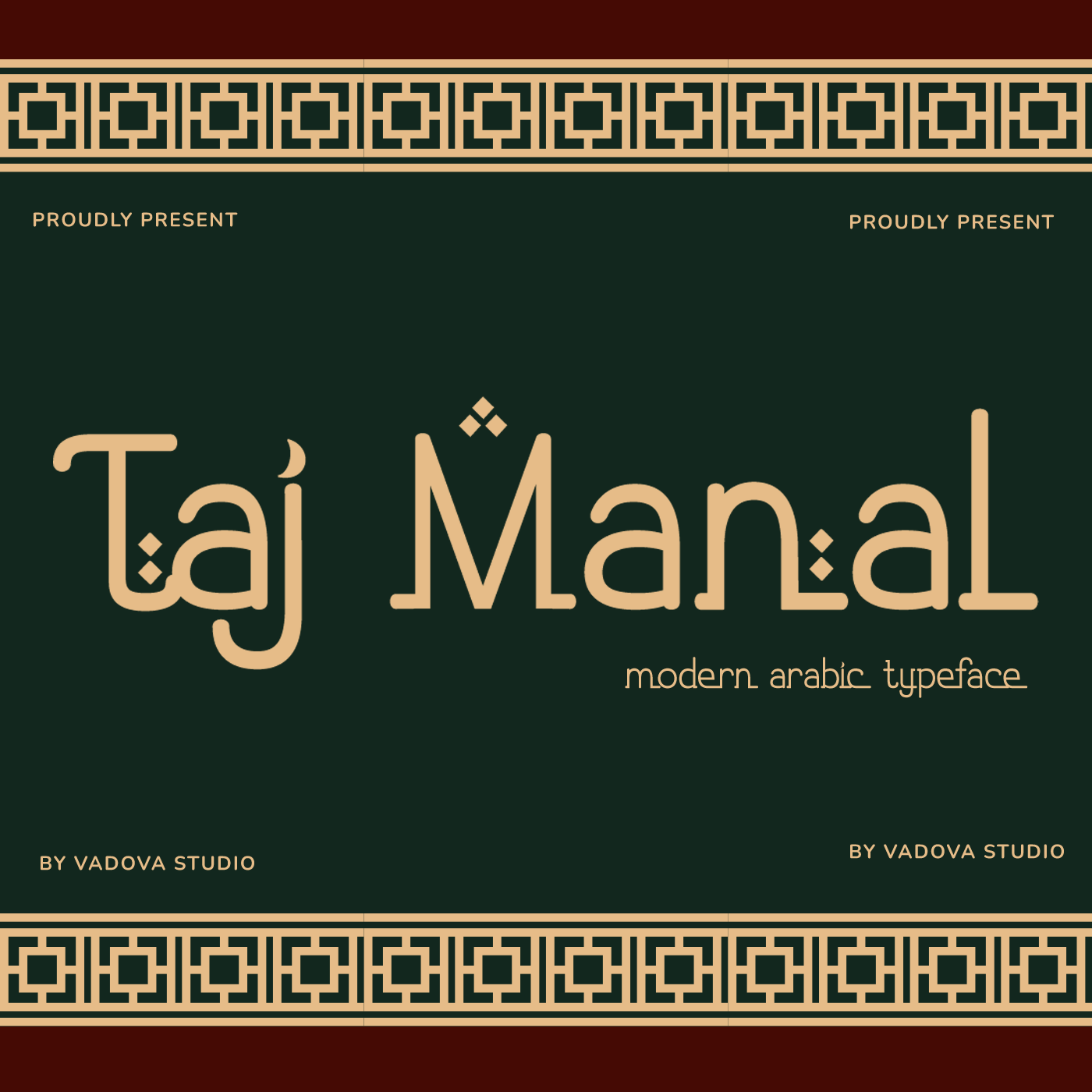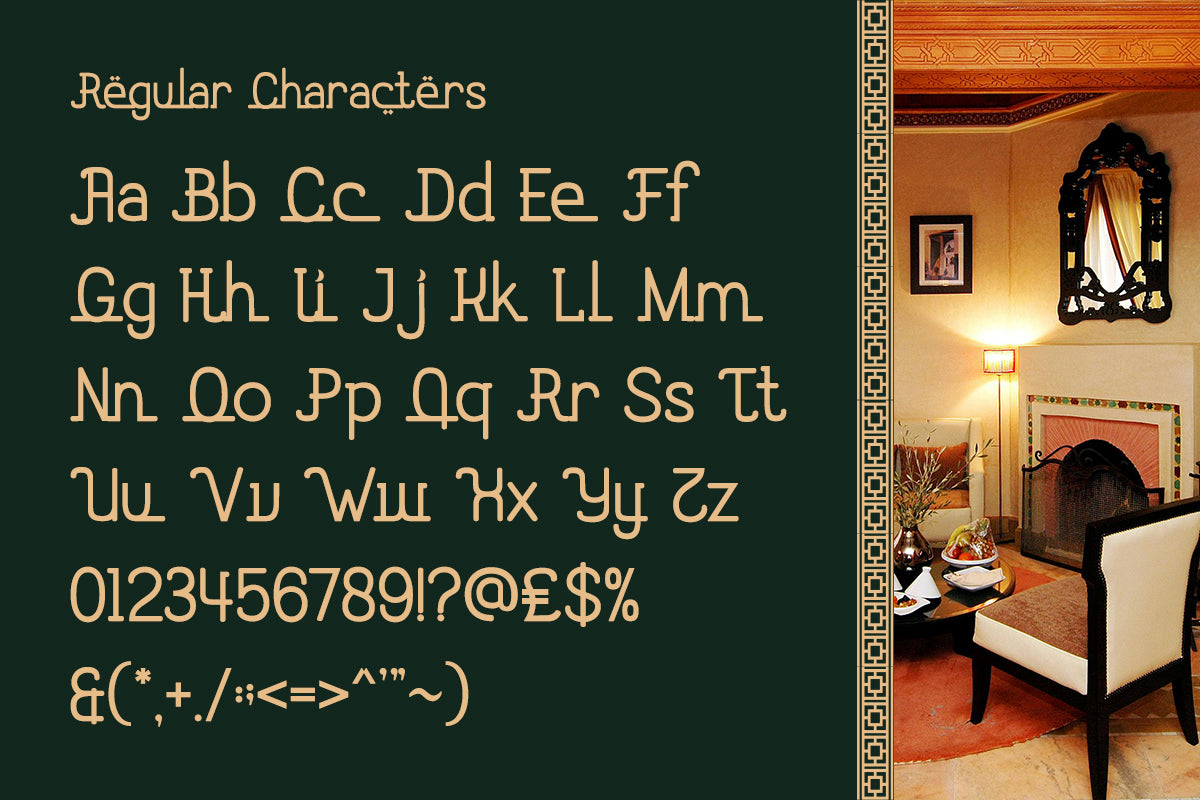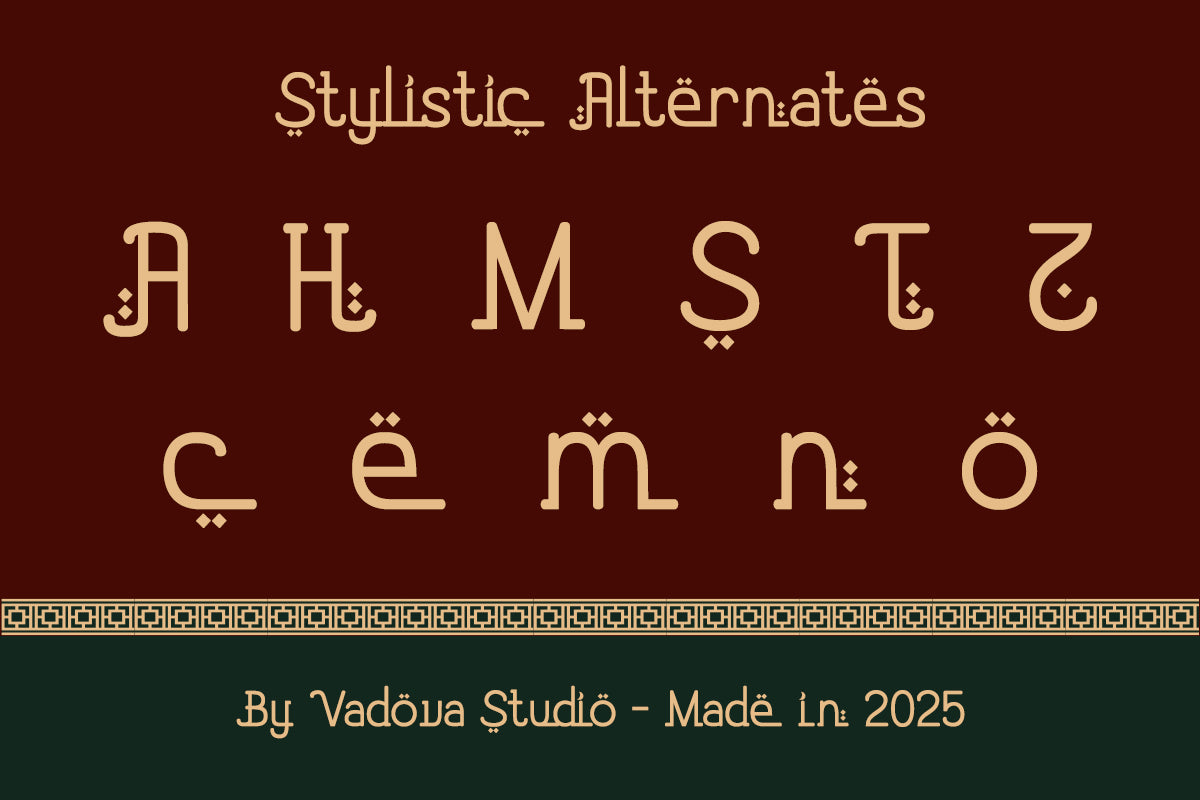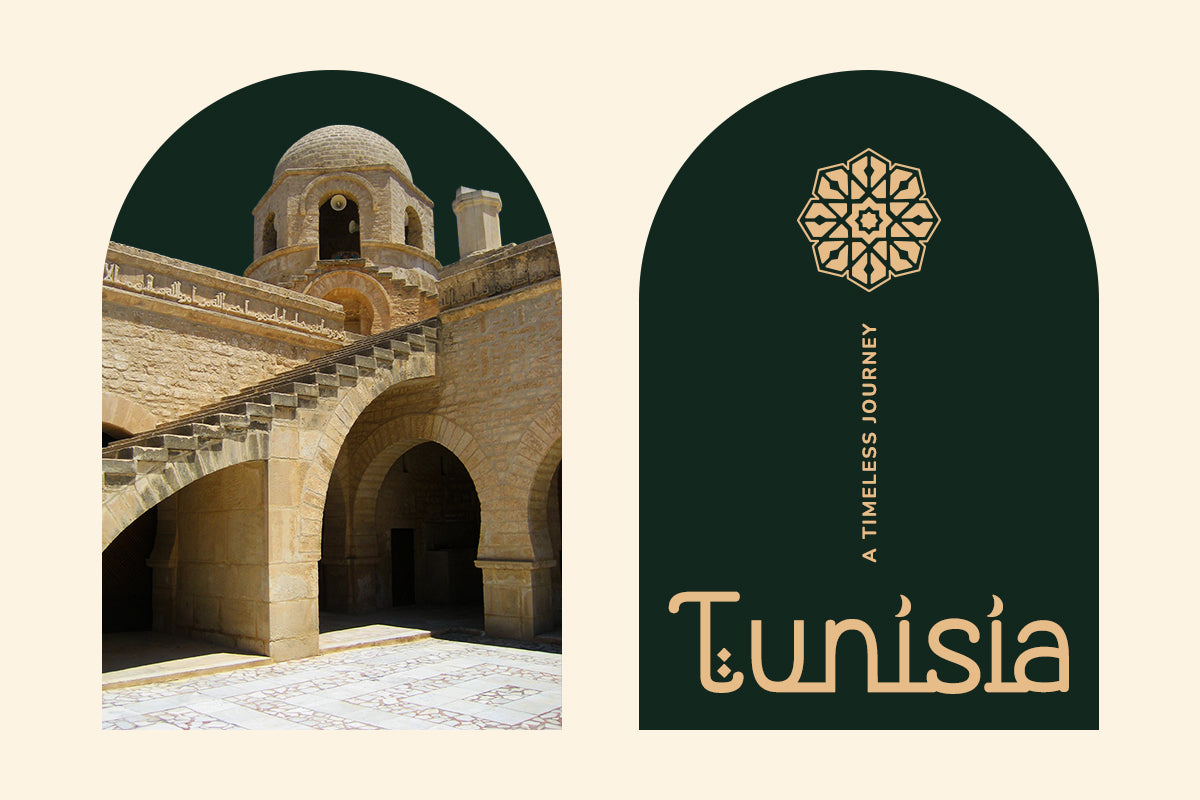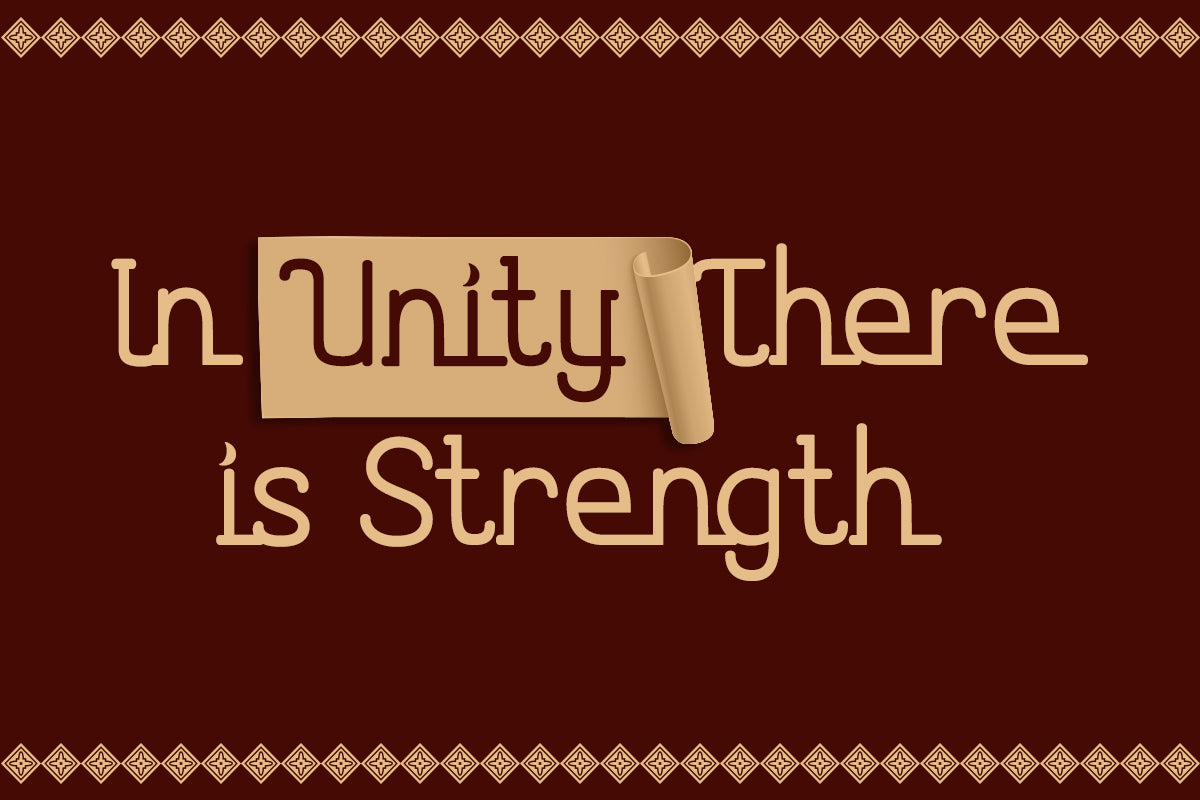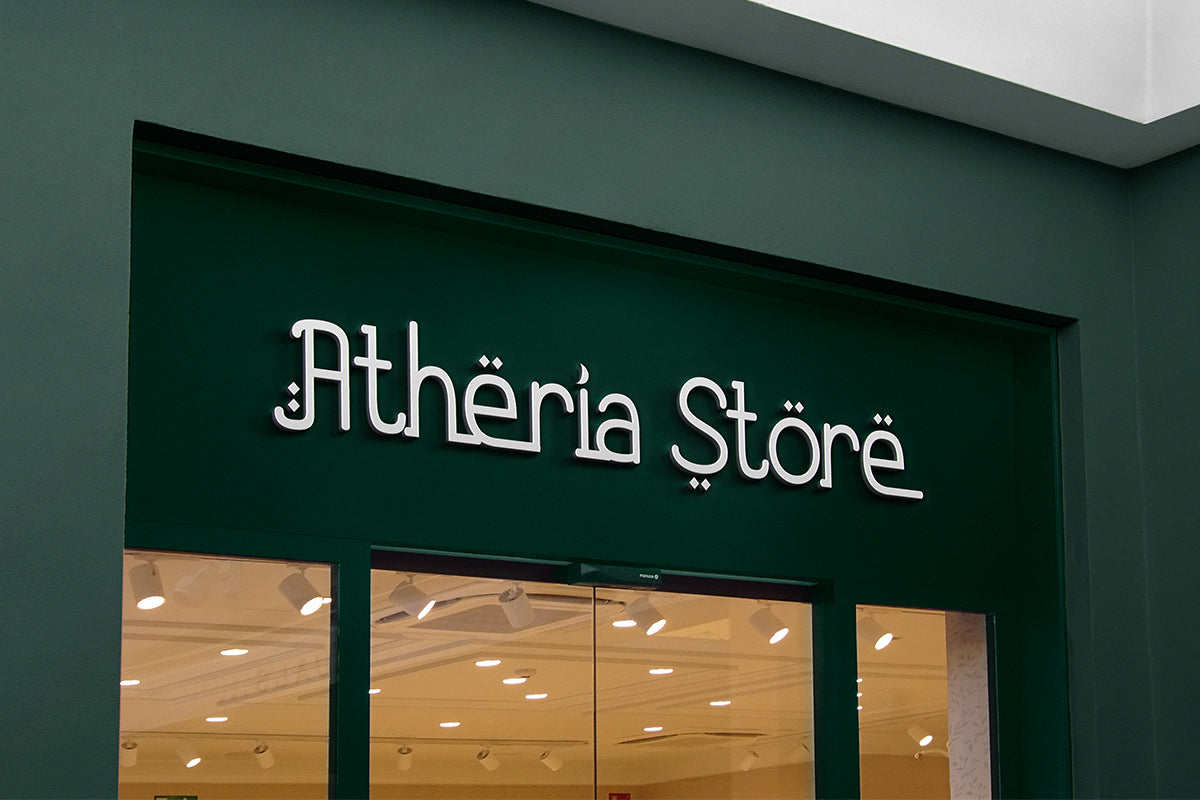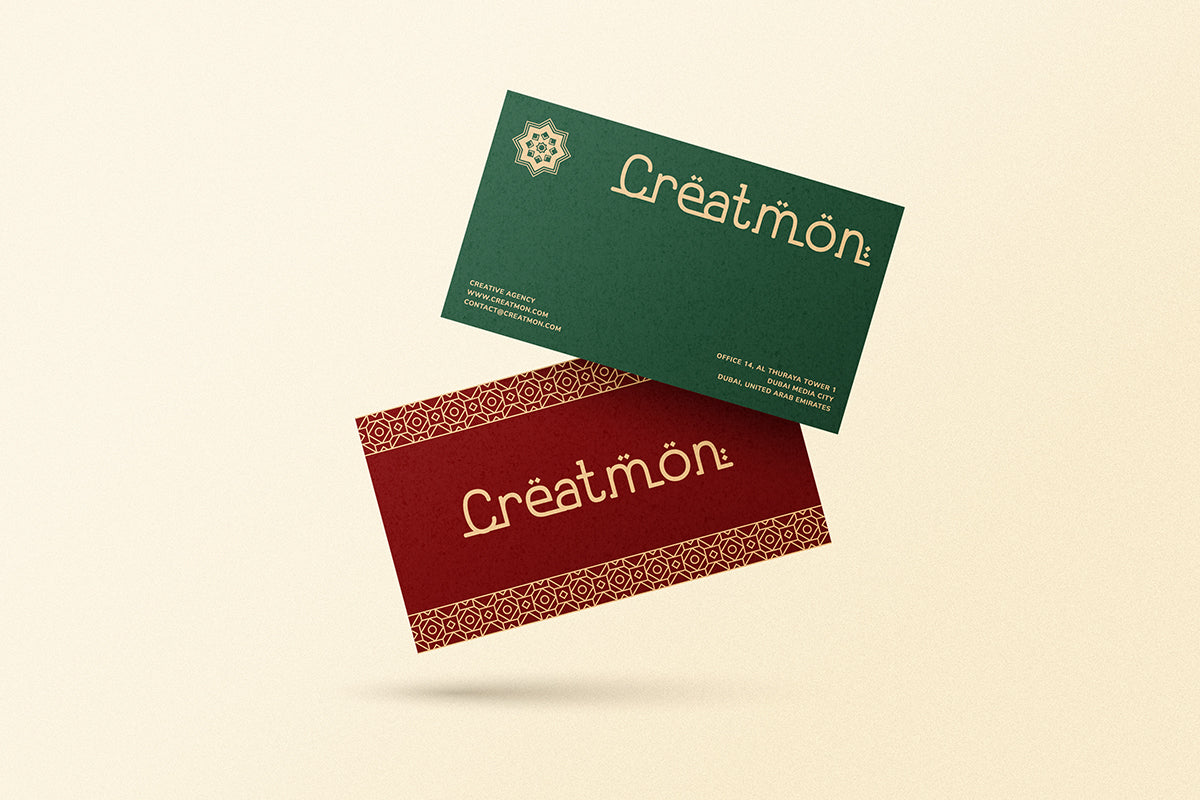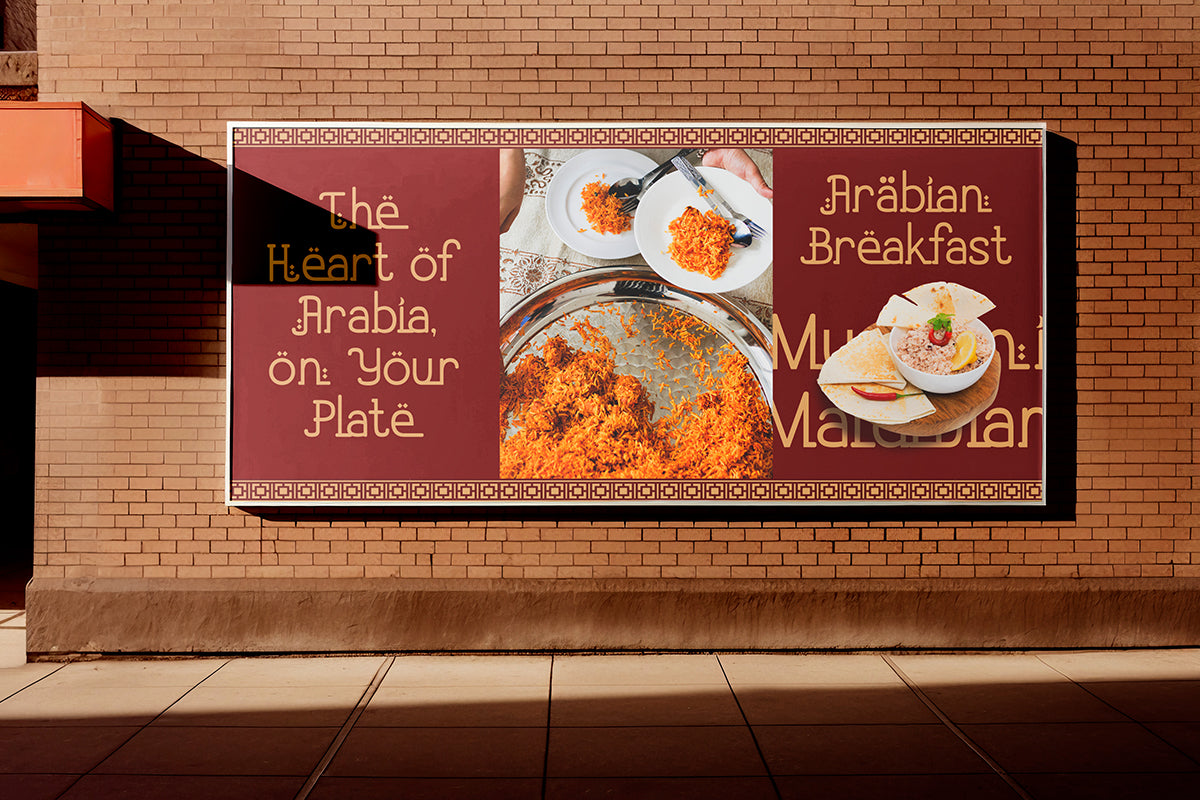
Taj Manal Modern Arabic Typeface Font
Taj Manal Modern Arabic Typeface Font is a modern decorative typeface infused with Arabic stylistic influence and cultural richness. Featuring elegant curves, unique alternates, and refined details, this font is ideal for branding, boutique signage, packaging, and editorial projects rooted in cultural storytelling. Its ornamental character bridges tradition with contemporary design, making it a versatile choice for heritage-inspired visuals and stylish modern applications.
The Taj Manal Modern Arabic Typeface Font is a decorative typeface that combines Arabic stylistic influences with contemporary design elements. It includes uppercase and lowercase characters, numerals, and punctuation, and is available in TTF, OTF, and WOFF formats.